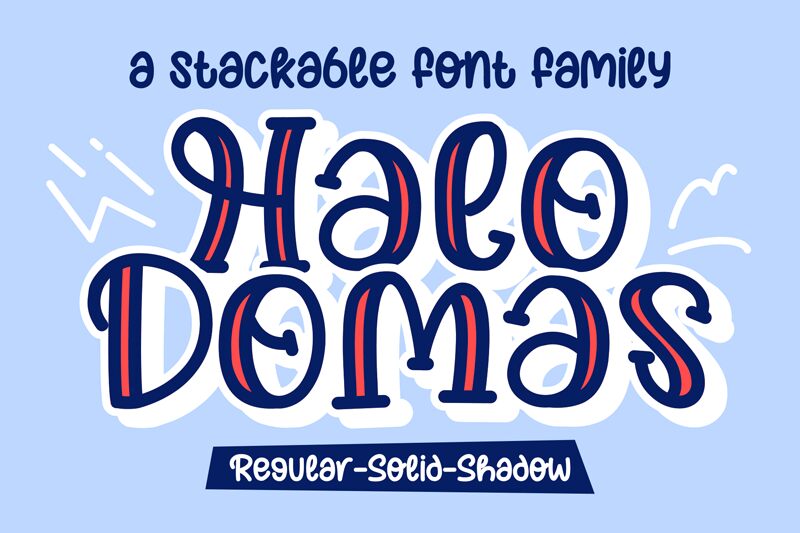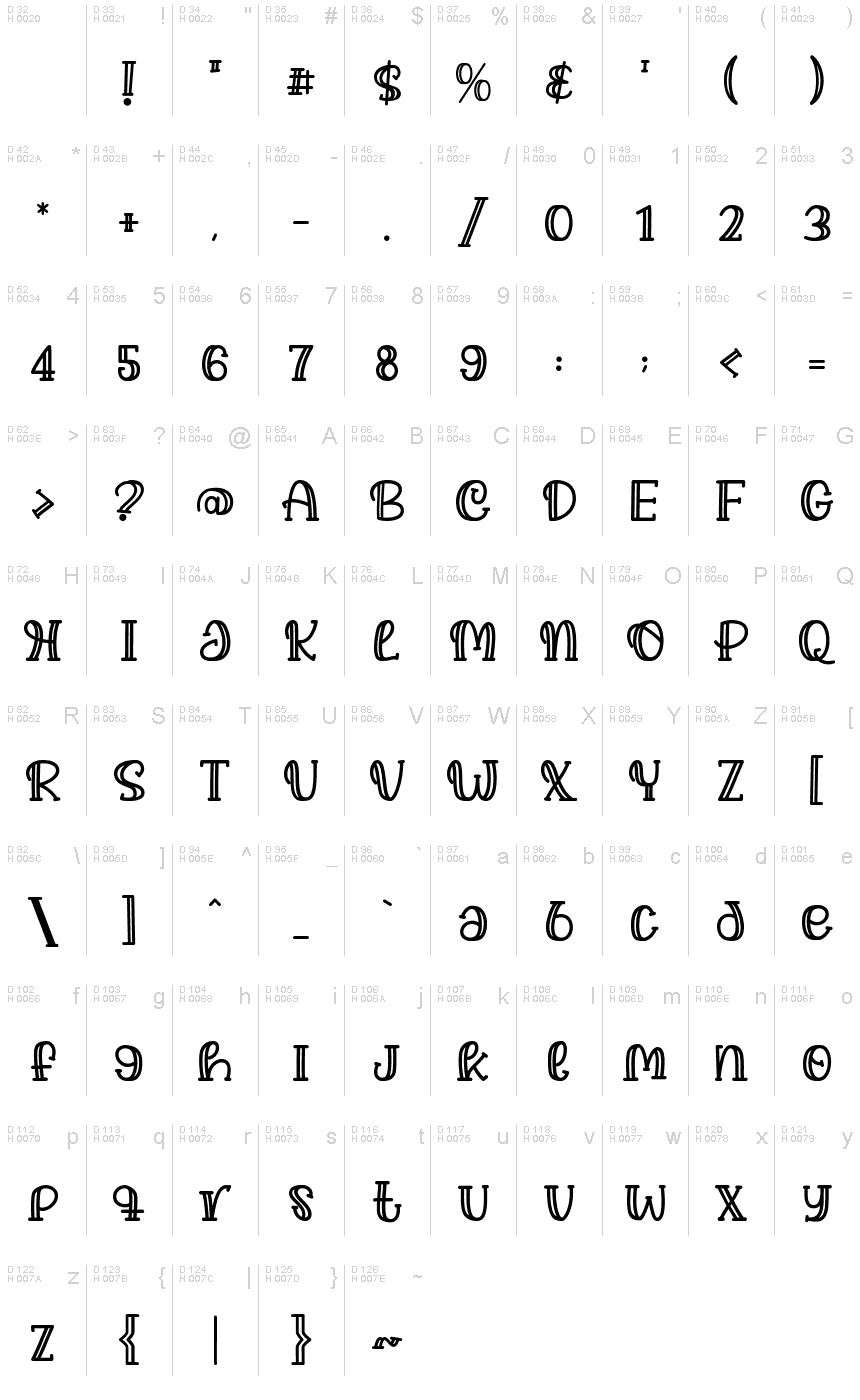
Halo Domas, designed by Mabhal Studio, is a bold and curly display font that demands attention. With its intricate swirls and loops, this font adds an air of elegance to any project. Perfect for wedding invitations, luxury branding, or fashion magazines, Halo Domas exudes sophistication and style. The bold weight ensures legibility even at smaller sizes, making it suitable for headlines or logos. Whether you're designing a glamorous event poster or creating eye-catching packaging, Halo Domas will add a touch of flair and make your project truly stand out.